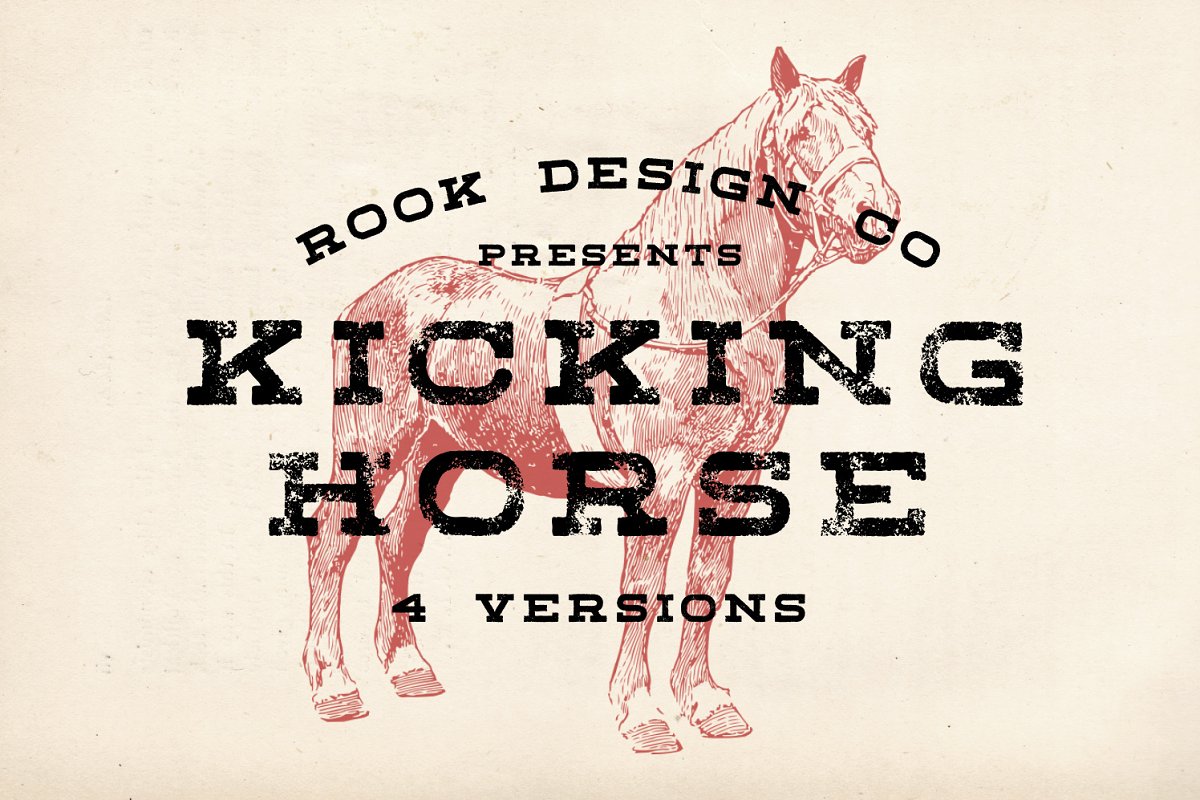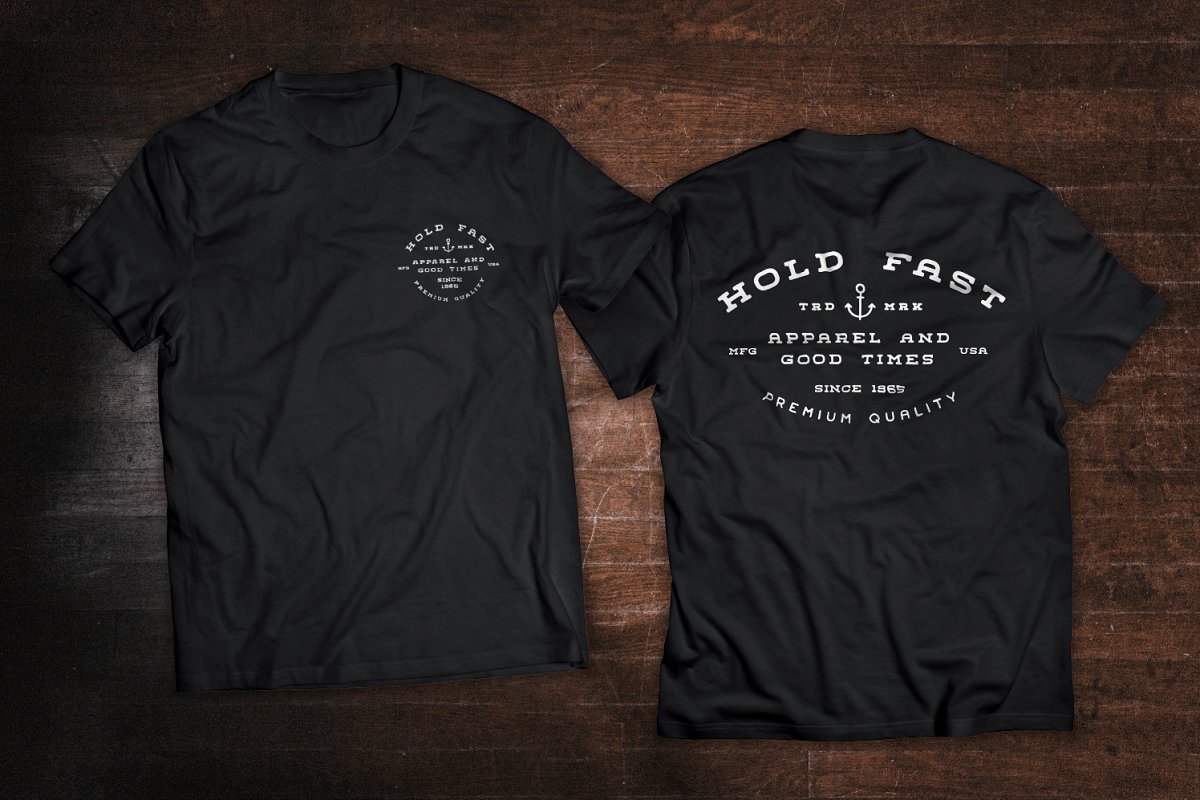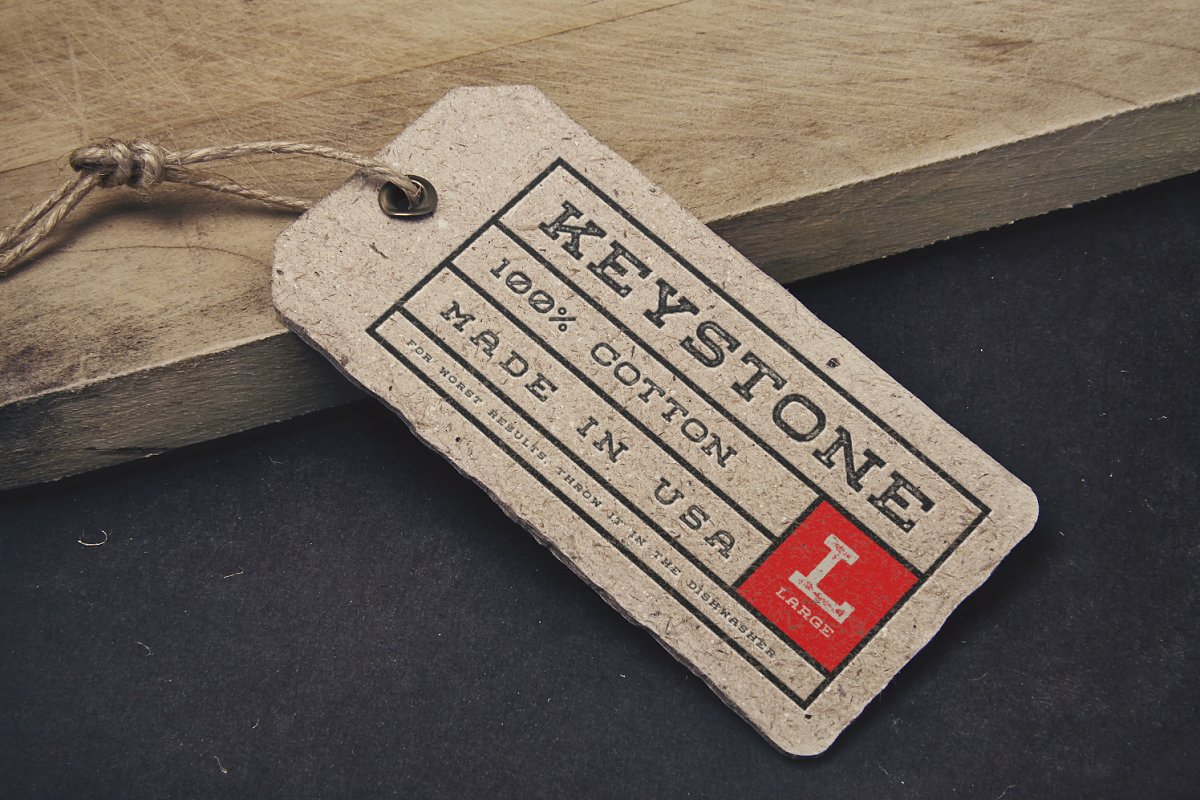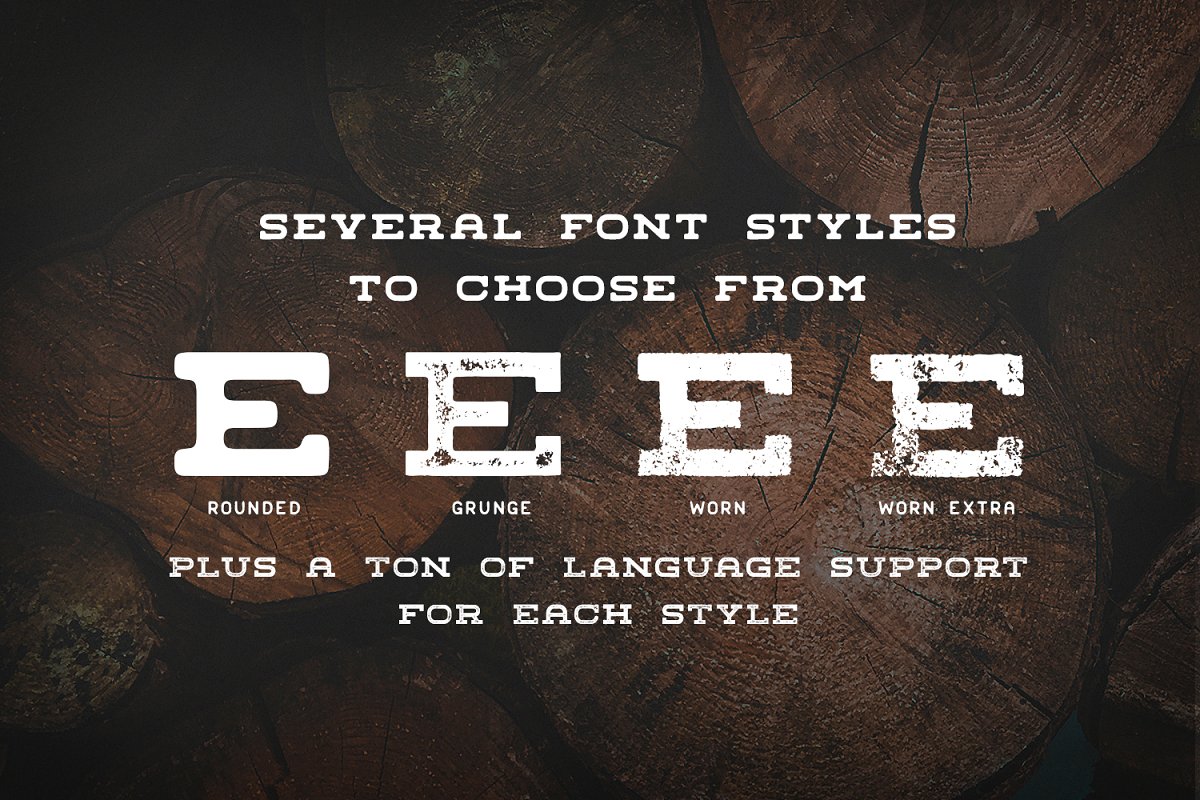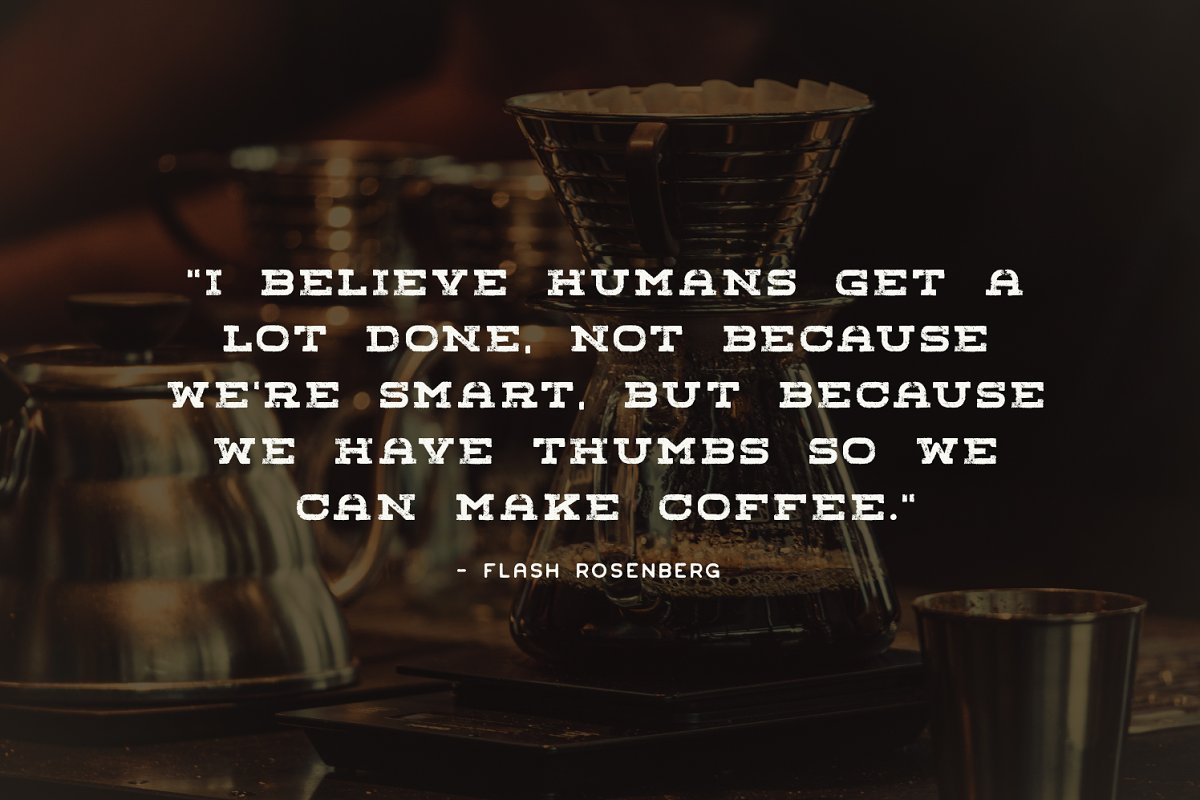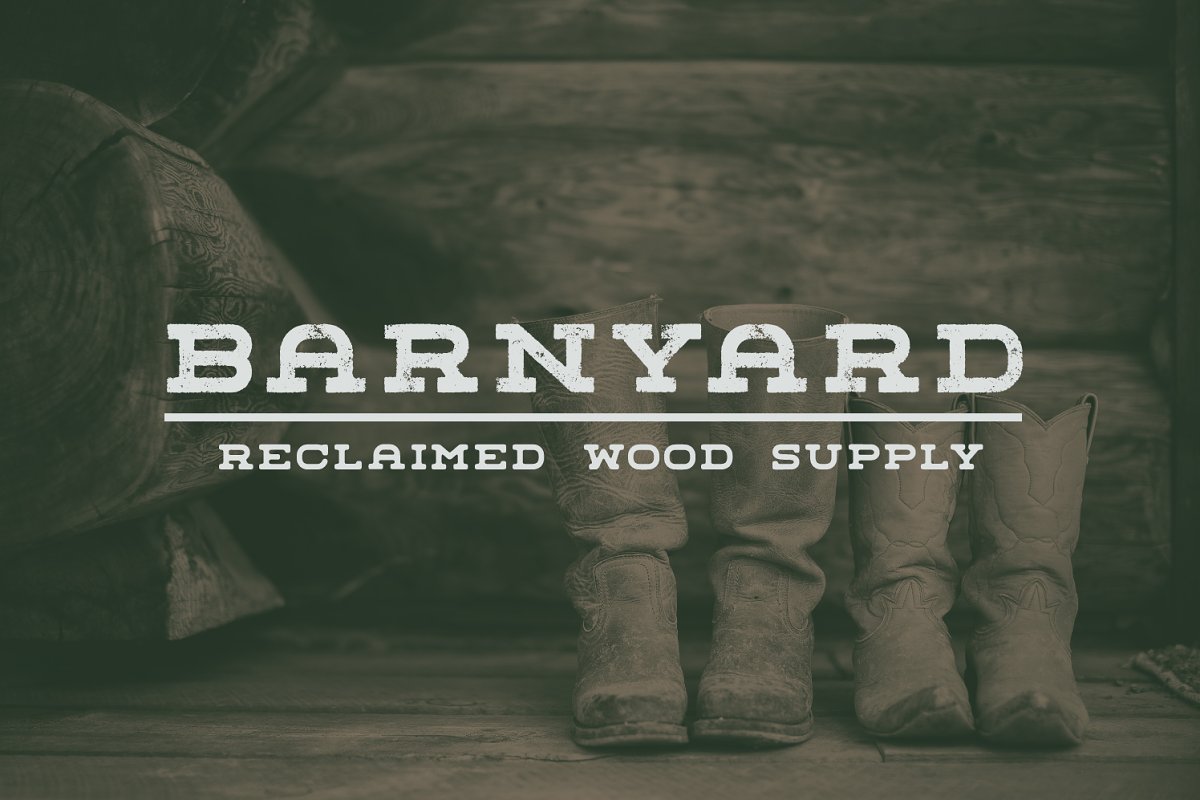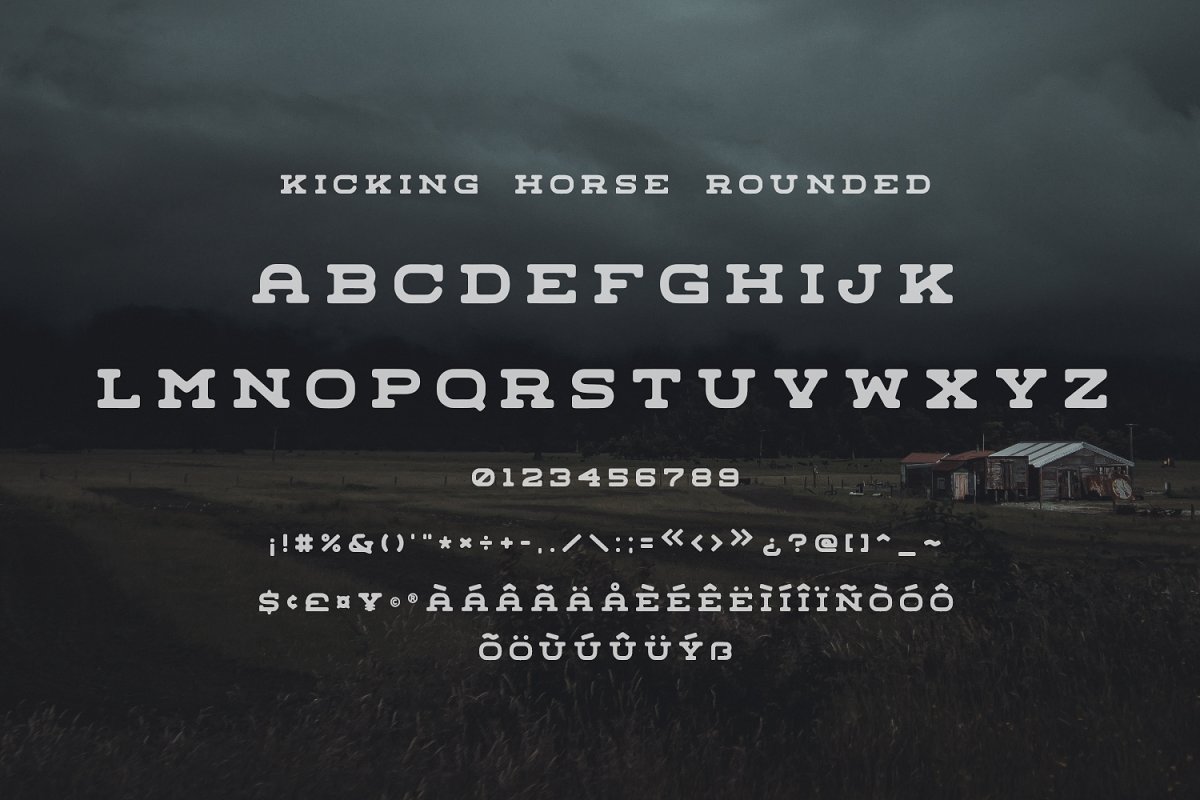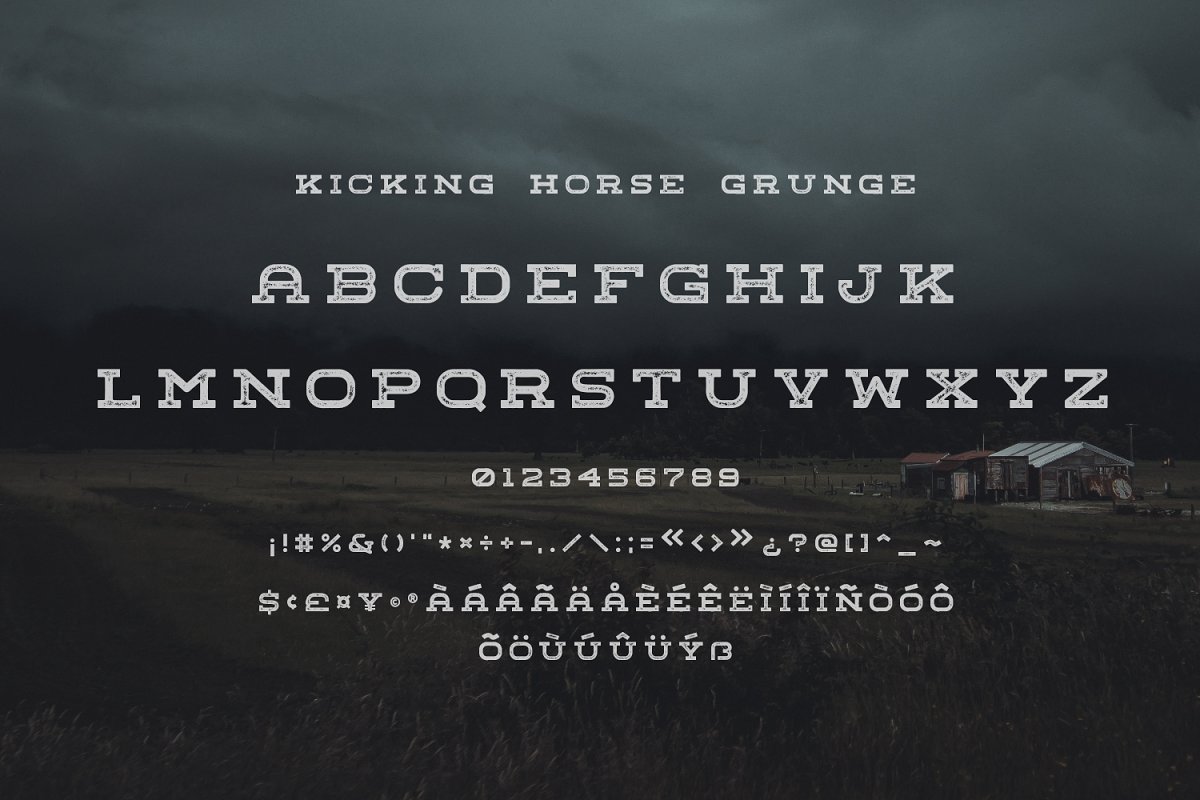
About the Kicking Horse 4 Font Family
Kicking Horse is a family of FOUR slab serif fonts designed with a vintage print look in mind, Rounded edges and textures were added in to give a weathered, western vibe, Kicking Horse works great for logos, text blocks and everything in between, The characters in Kicking Horse are wider than your average font, which is great for a well rounded font arsenal
Here’s everything you get with Kicking Horse:Four fonts:Kicking Horse – RoundedKicking Horse – GrungeKicking Horse – Worn ExtraLanguage Support – We’ve added in a great deal of extra characters to support many different languages, Commercial/Extended License – Use this on as many projects as you please